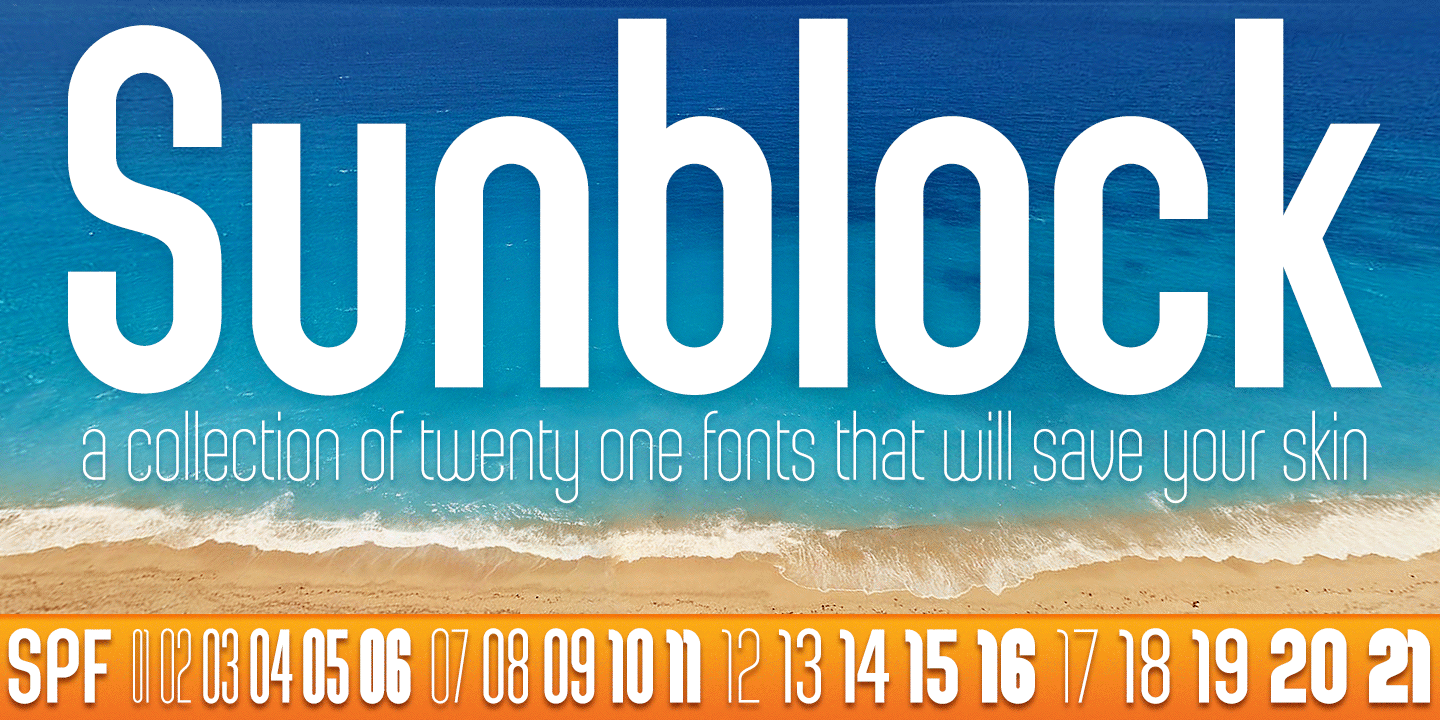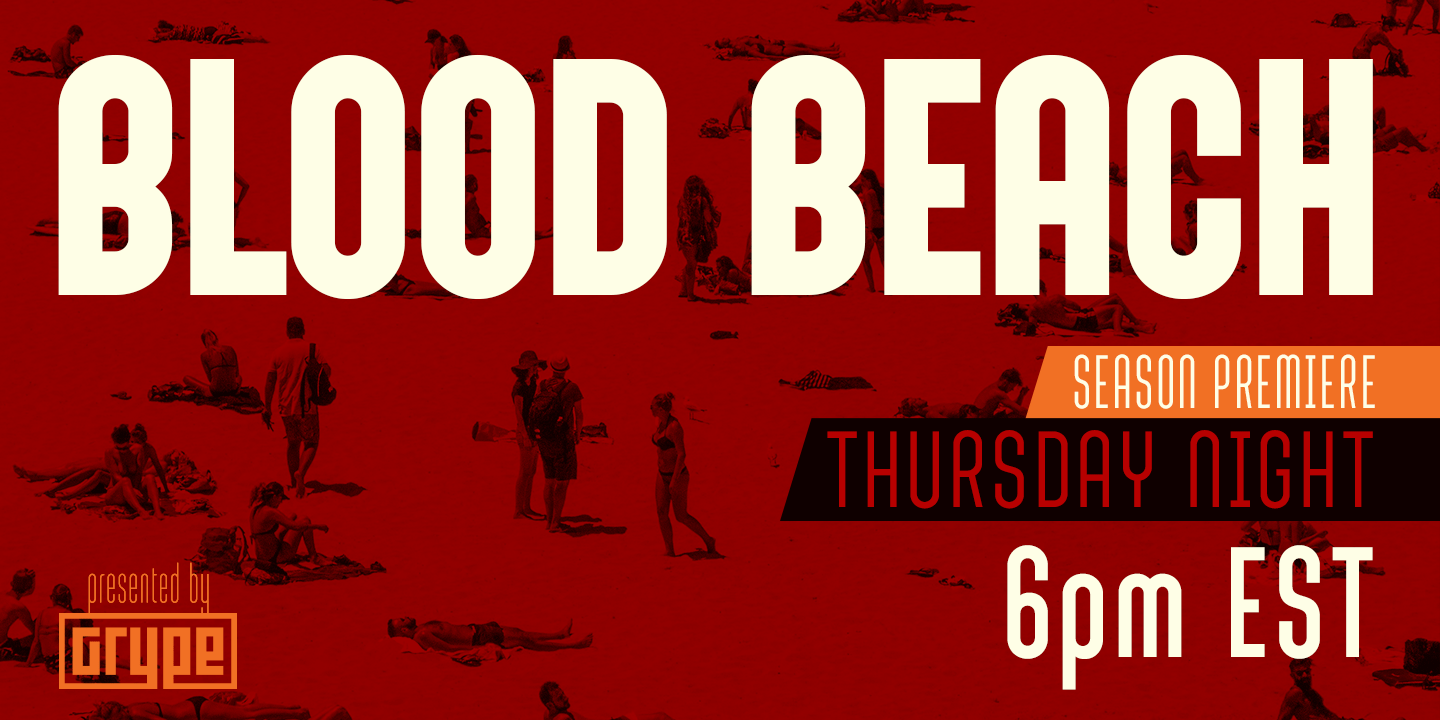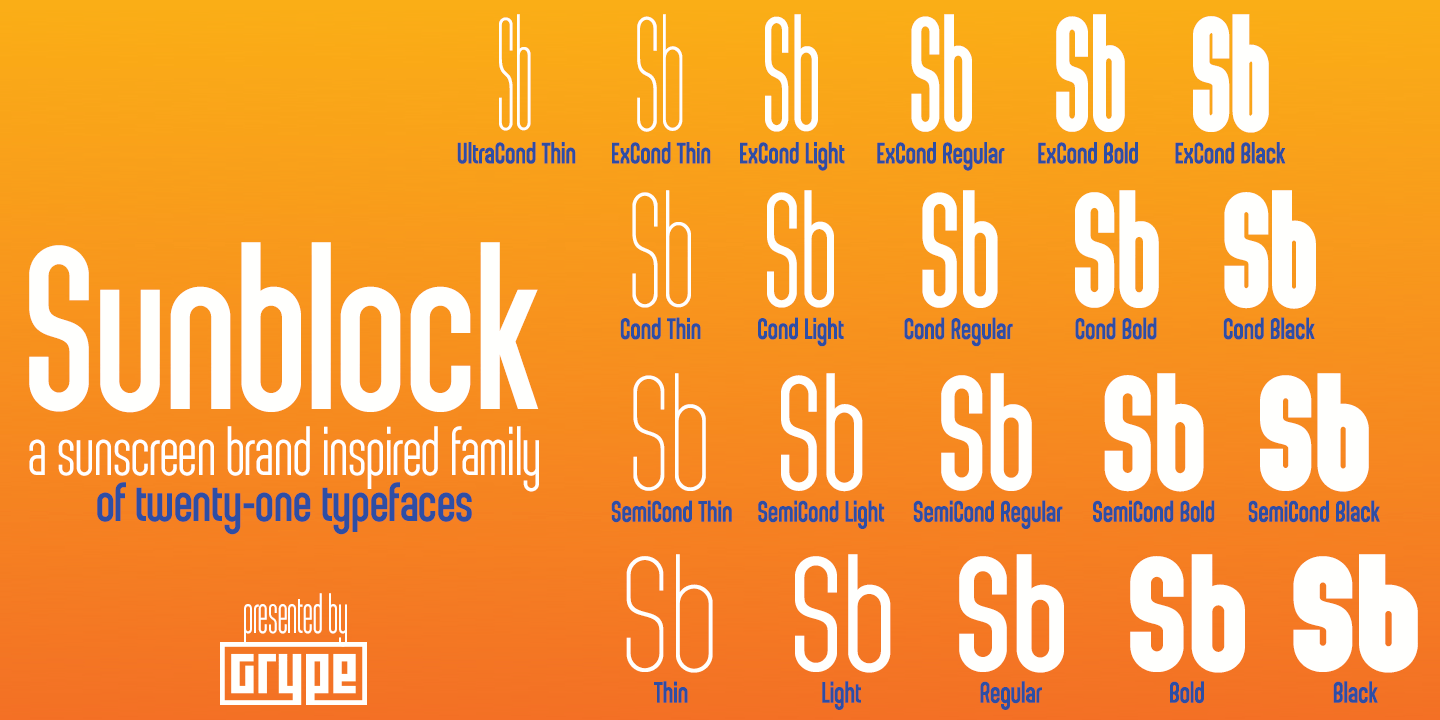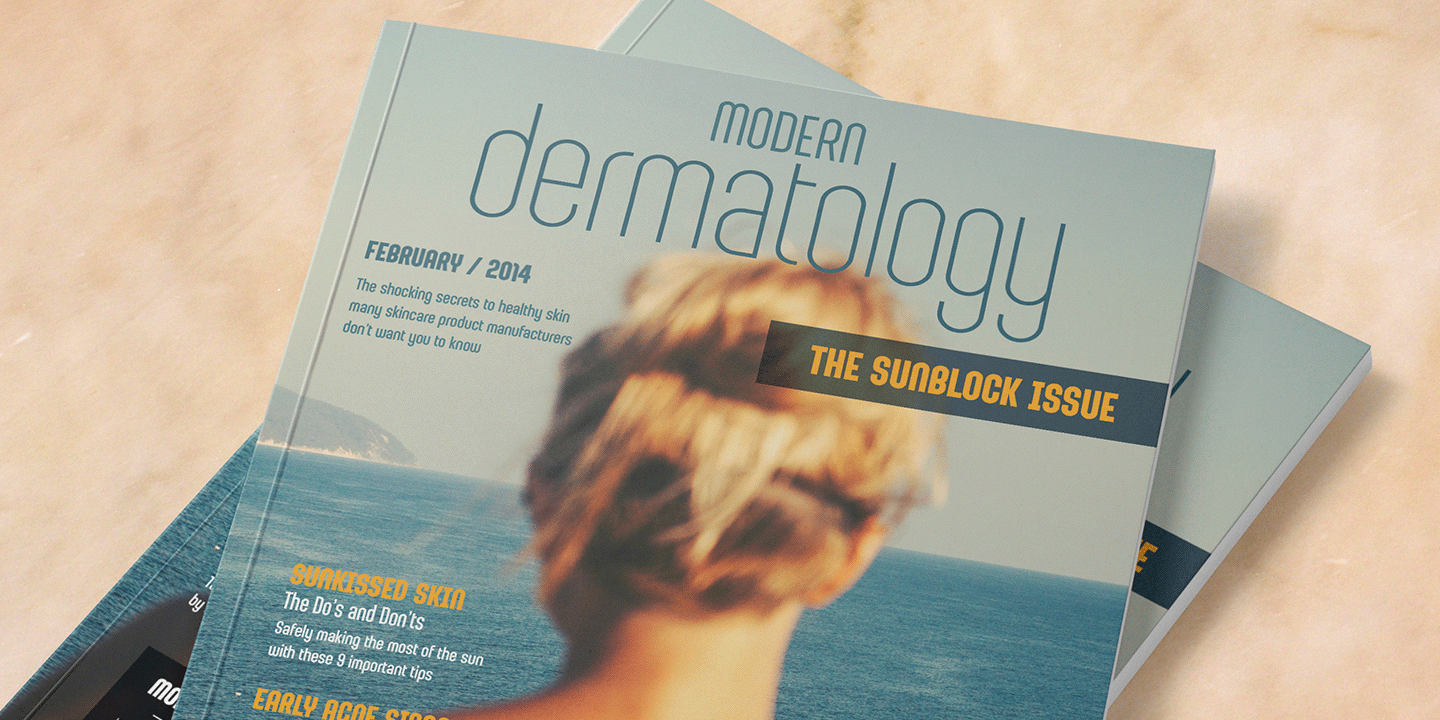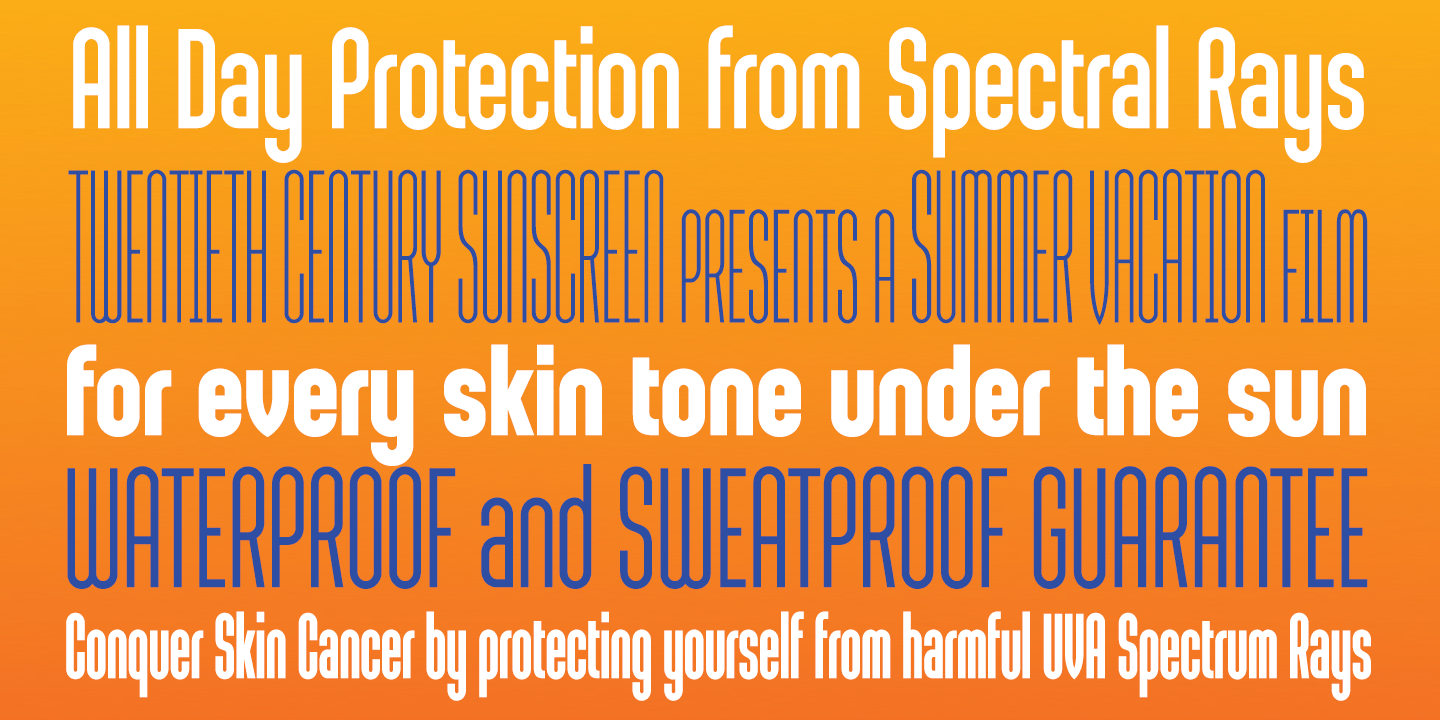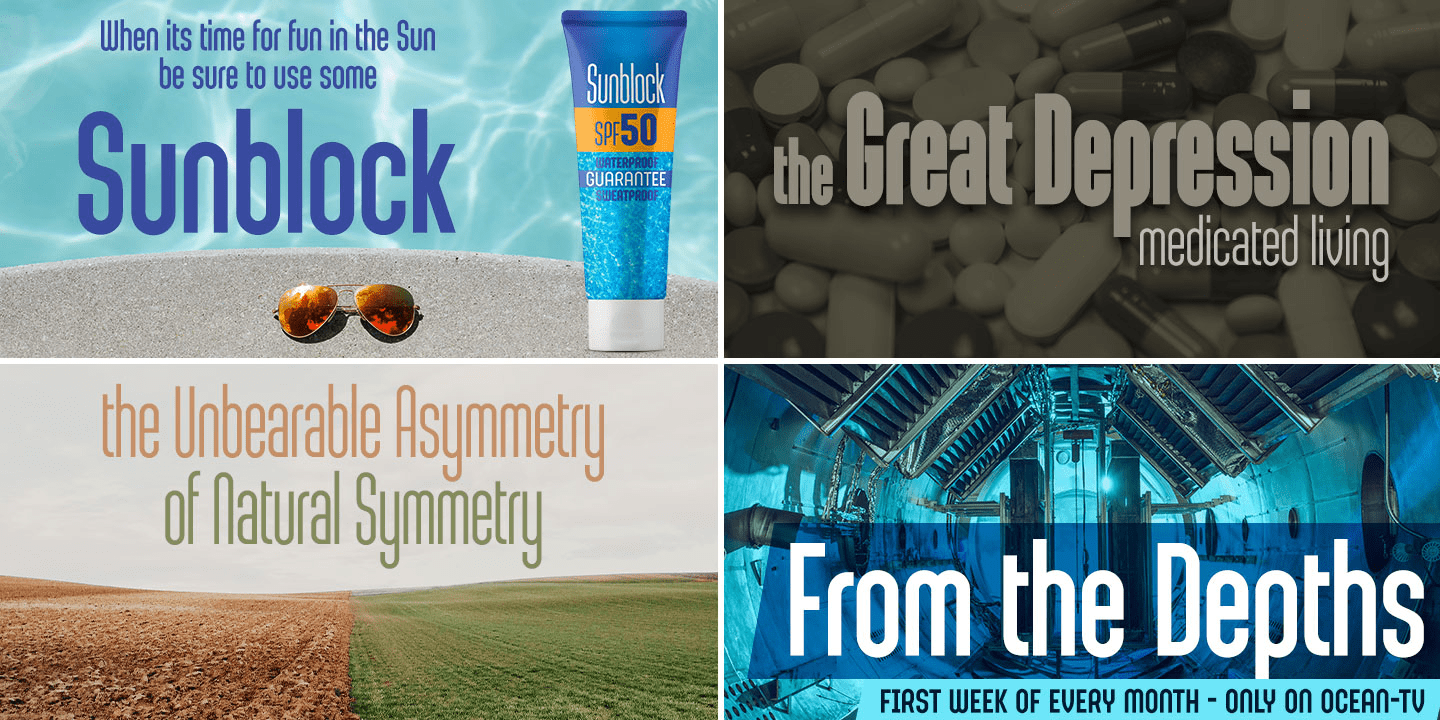
Sunblock Pro Collection
Clean and geometric deco sans typefaces have been used in a range of scientific publications, corporate logotypes, and beauty products over the years. However, a typeface of this style has yet to have an expansive range of widths and weights to become a design workhorse, until now. The Sunblock family finds its origin of inspiration in the Coppertone sunscreen company logo, and from there expands to type megafamily.
Sunblock celebrates the rounded geometric forms of deco and bauhaus lettering through a compressed lens, transcending its brand inspired origin to give birth to a font family that pulls on modern and historical styles. It inherited its soothing tone from the limited character logotype that inspired it, and goes on to include a lowercase, small caps, and a comprehensive range of widths and weights, creating a straightforward, uncompromising collection of typefaces that lend a solid foundation and a broad range of expression for designers.